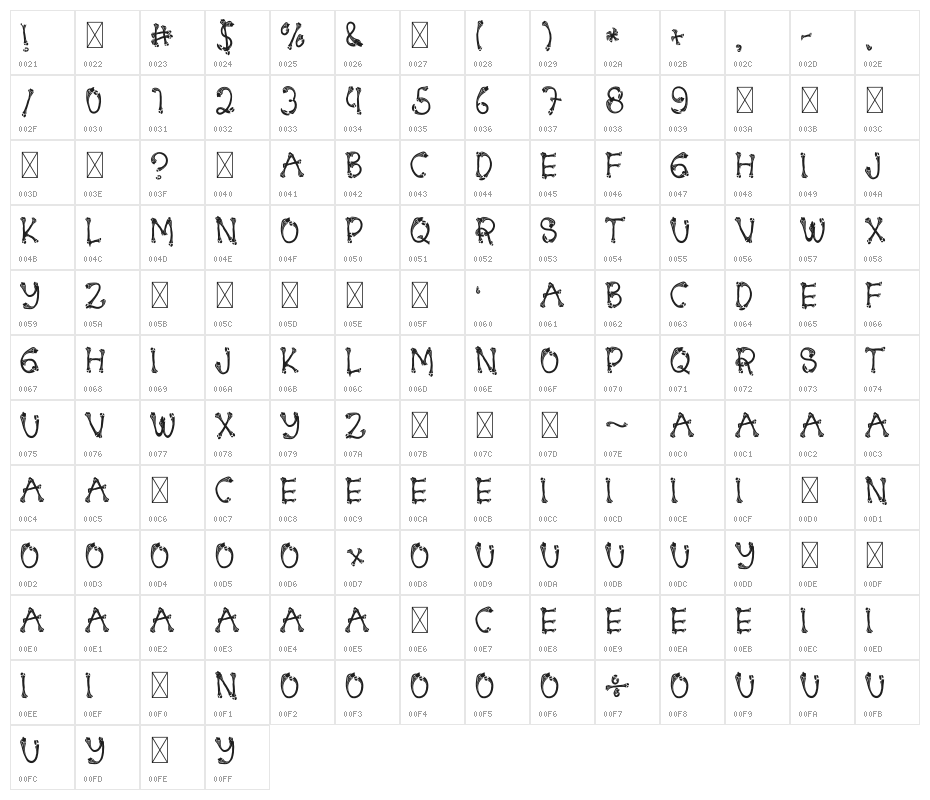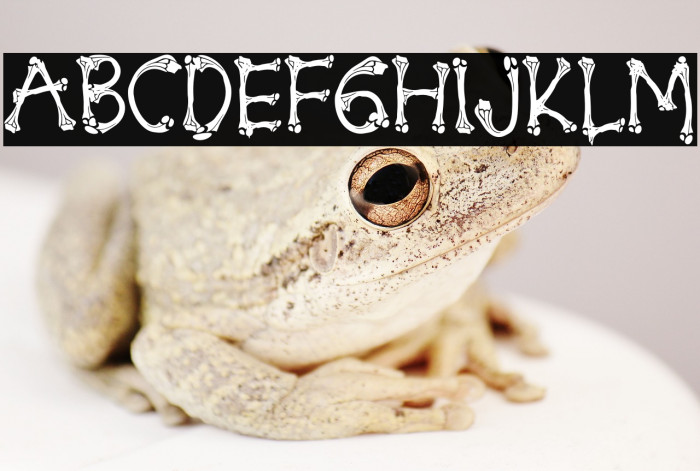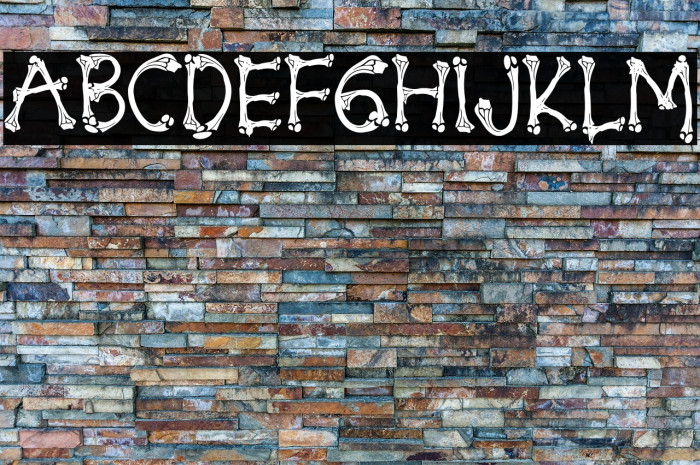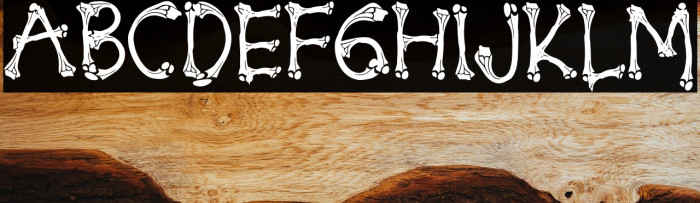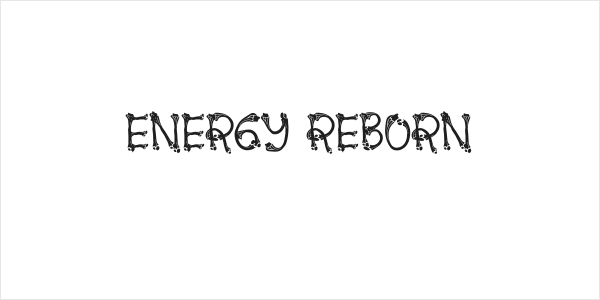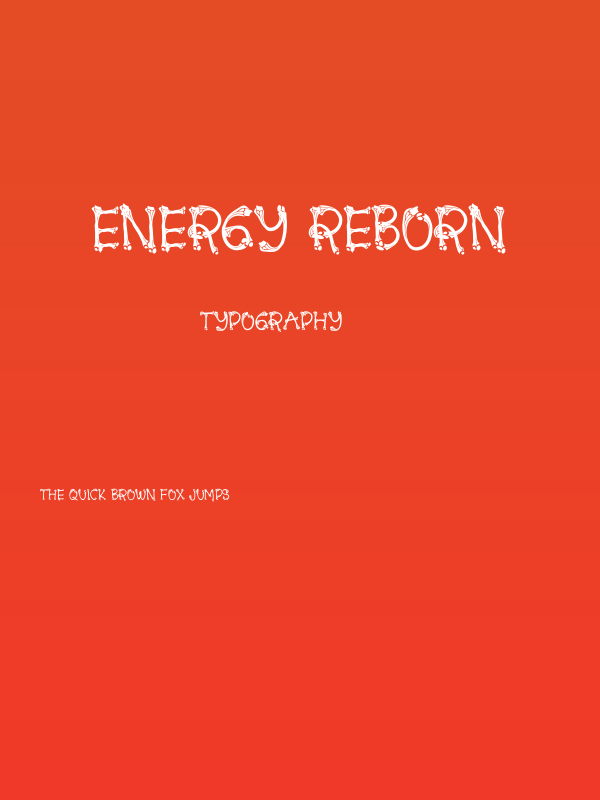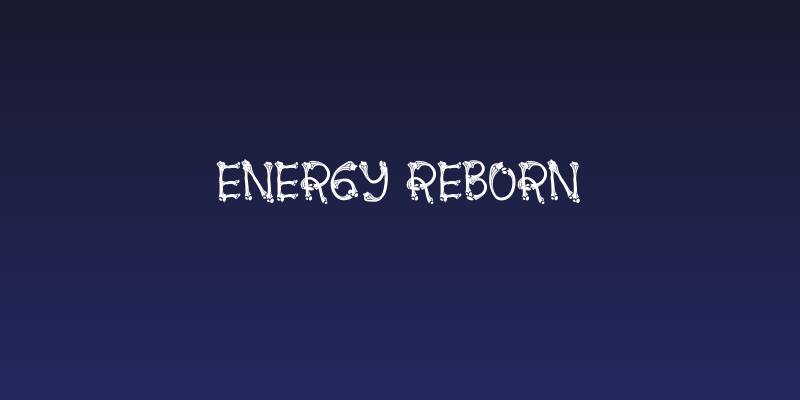
Energy Reborn Font
Energy Reborn Description
This font features a unique and playful design, incorporating elements that resemble bones or skeletal structures, giving it a distinct and edgy appearance. The characters are crafted with intricate details, creating a sense of movement and energy. The uppercase and lowercase letters maintain a consistent style, while the numbers and special characters follow the same thematic design. This font is highly decorative, making it ideal for projects that require a bold and unconventional look. Its artistic flair and thematic elements make it stand out, capturing attention with its creative execution.
| Use Case | Headlines, Logos, Thematic Posters |
| Proposed Projects | Ideal for Halloween-themed designs, horror movie posters, edgy branding, or any project requiring a bold, thematic typeface. |